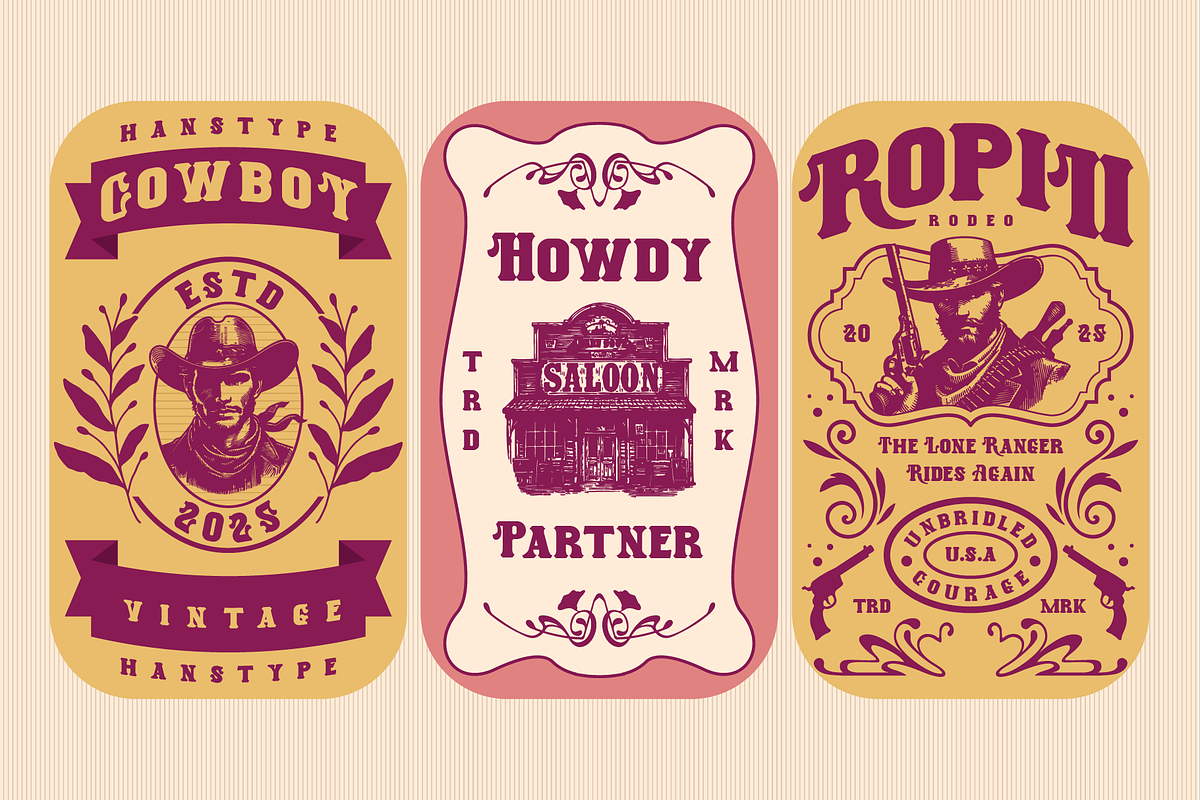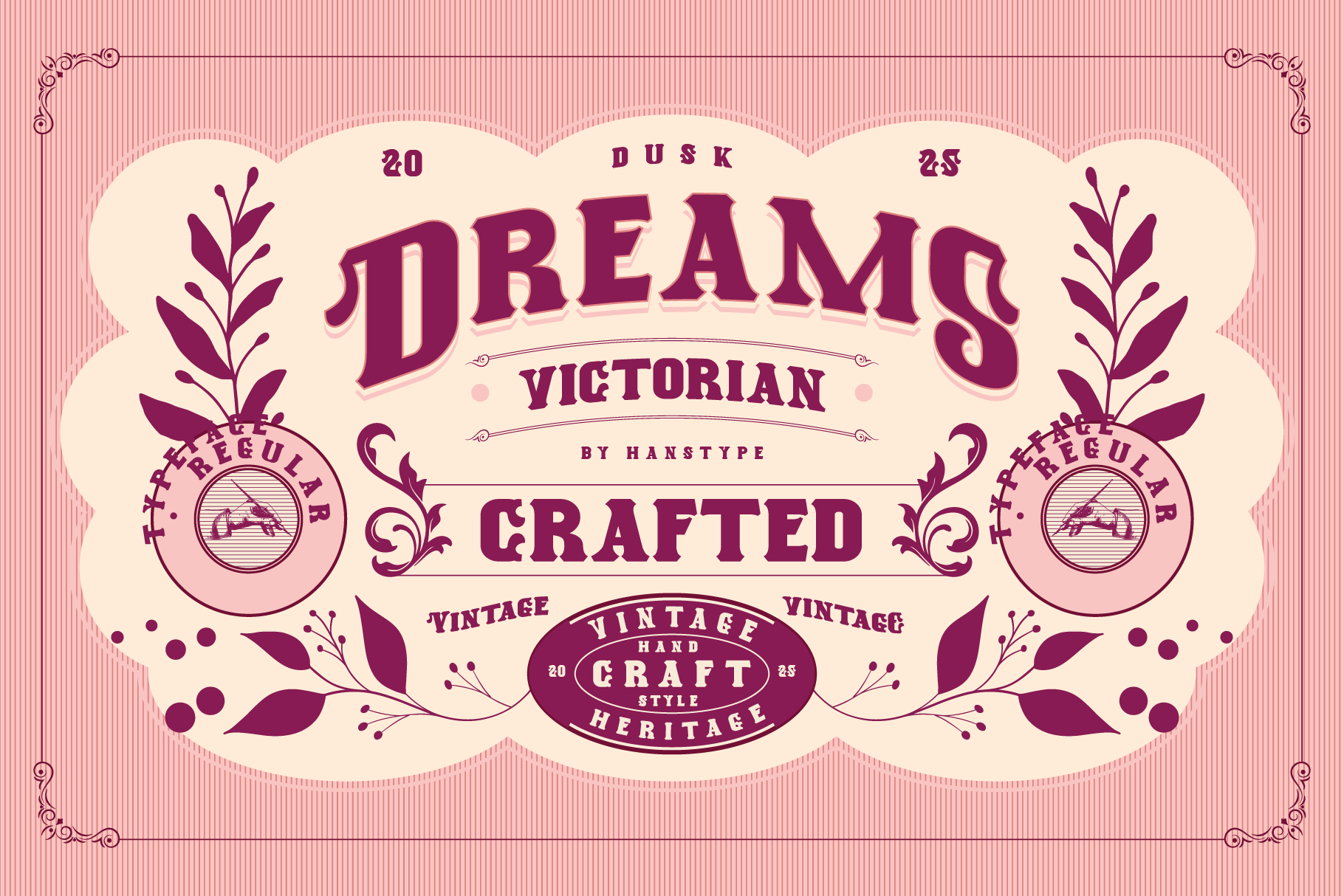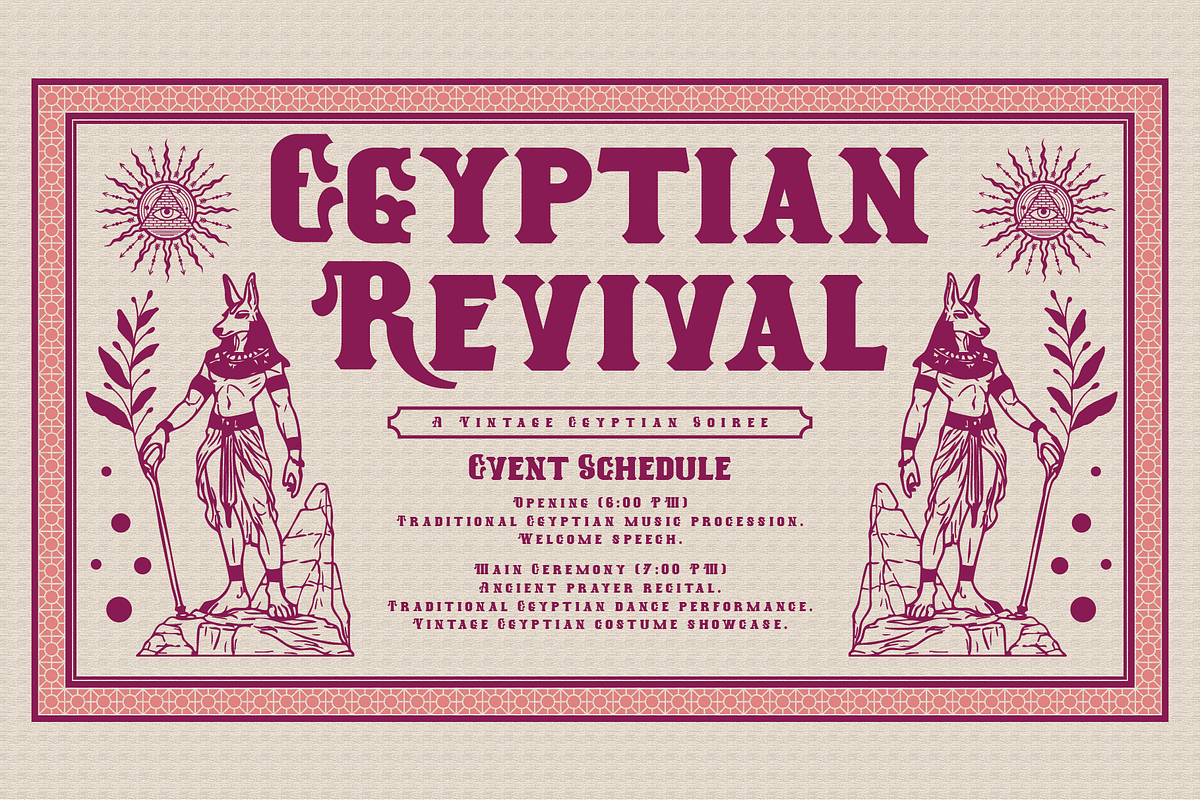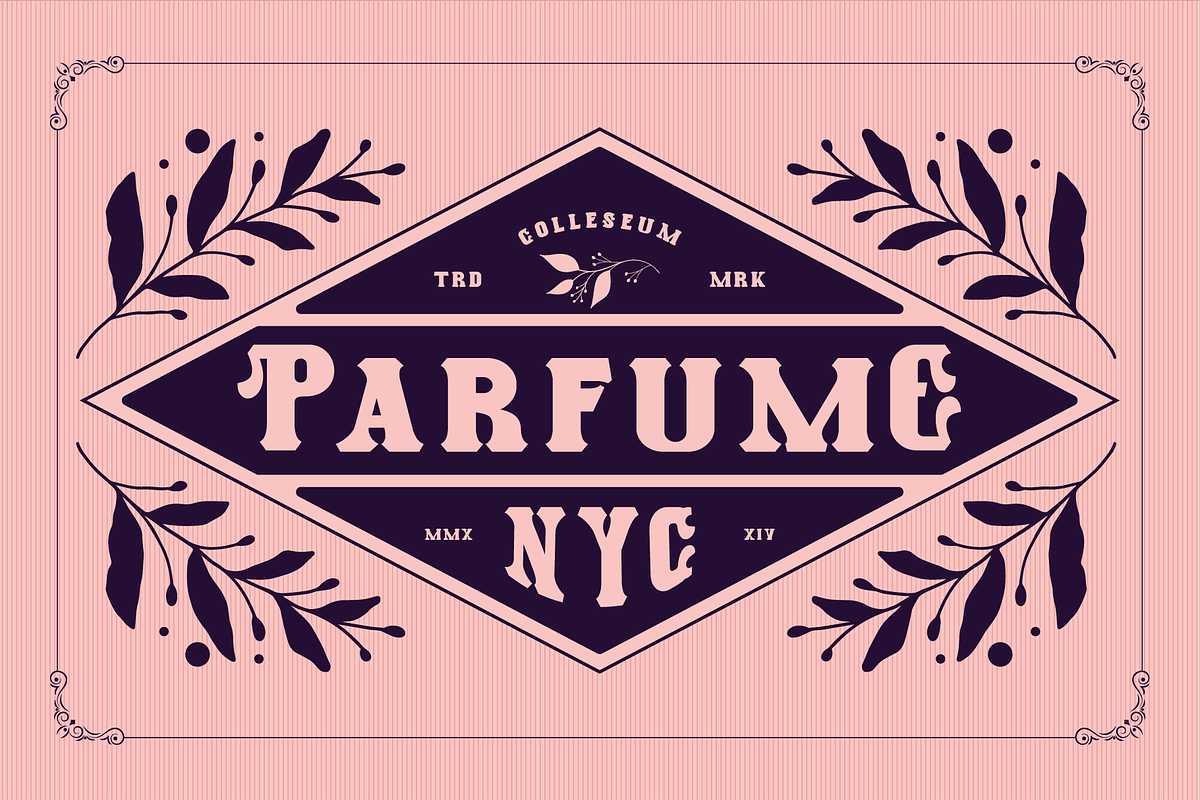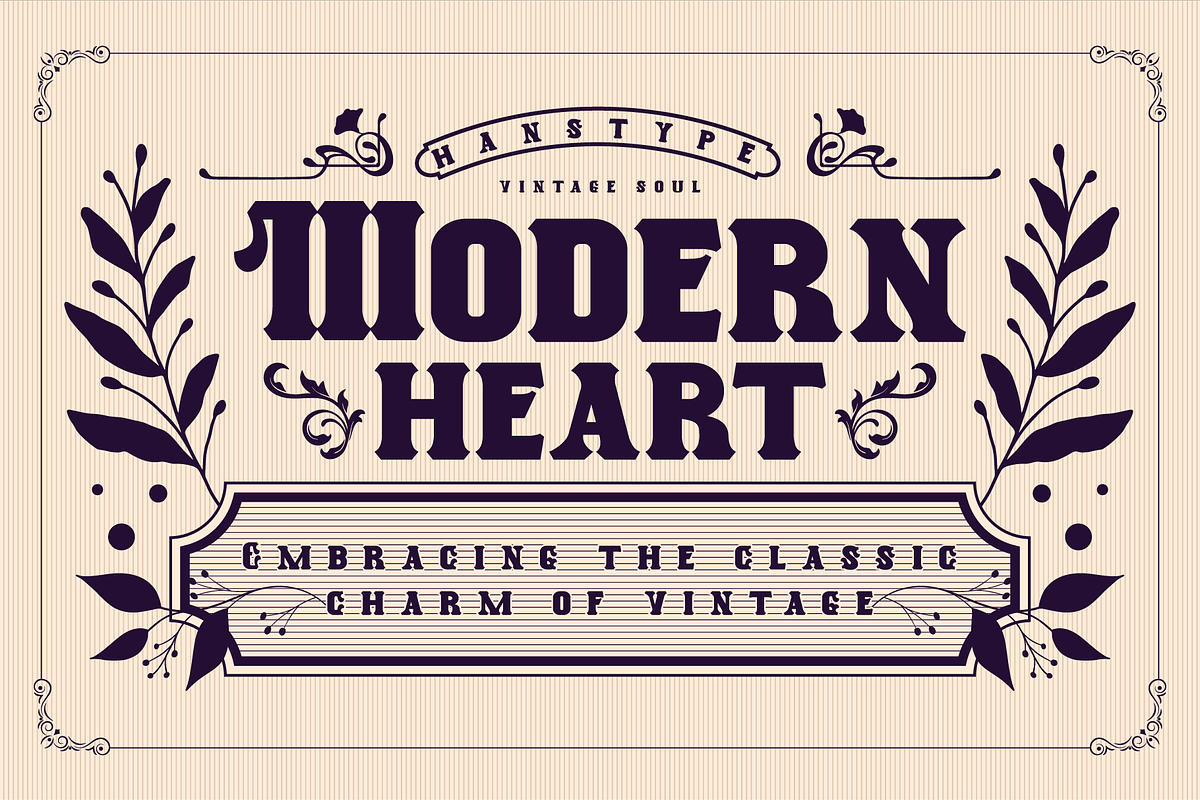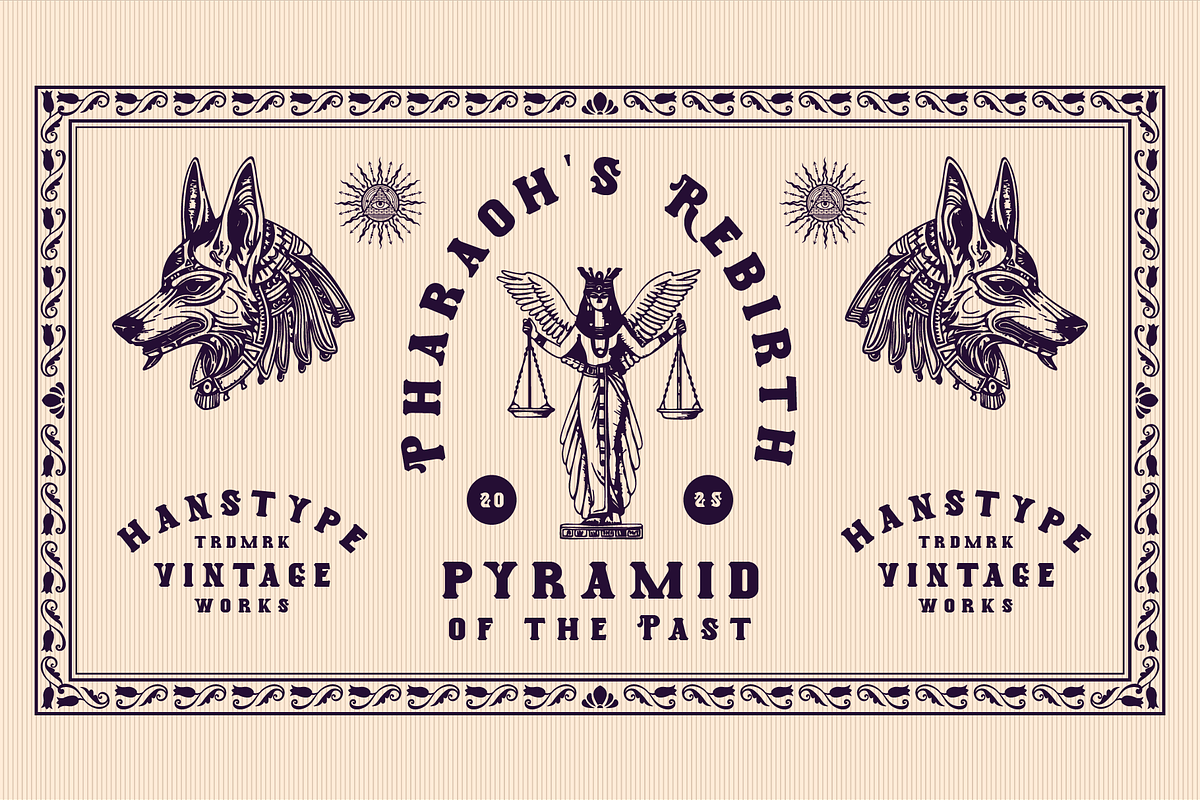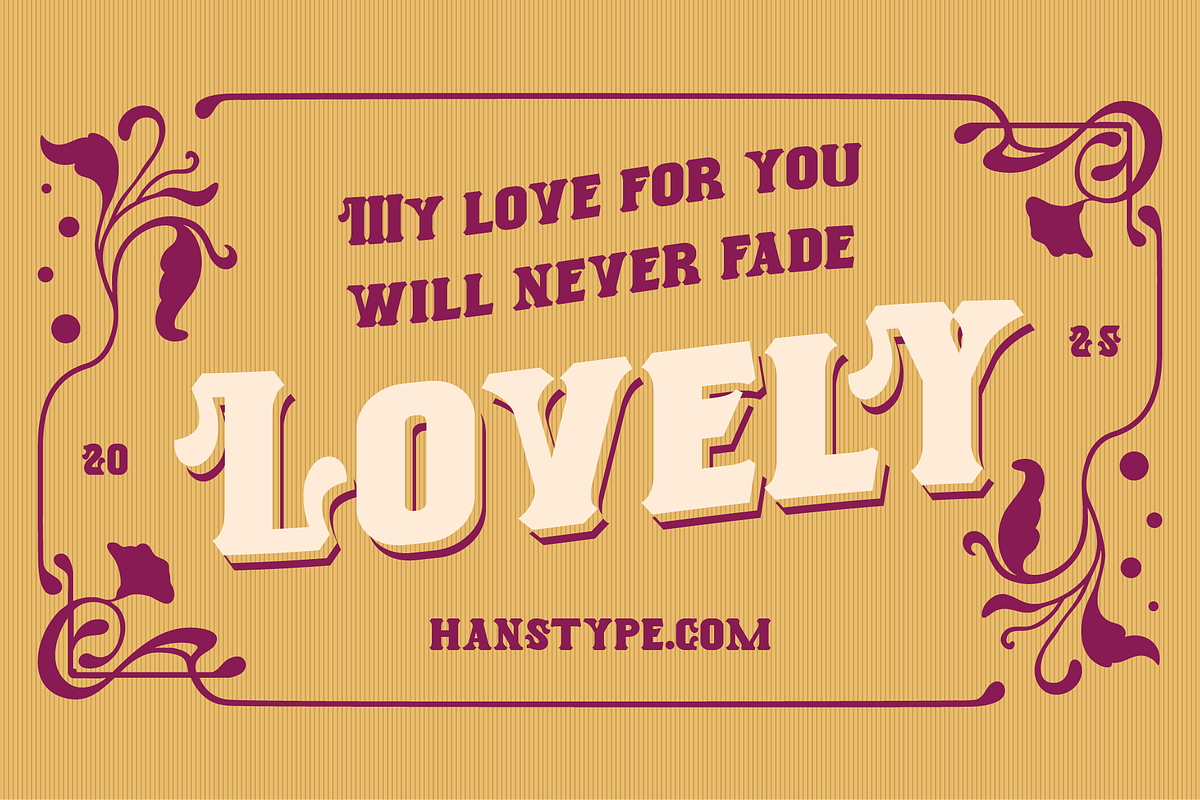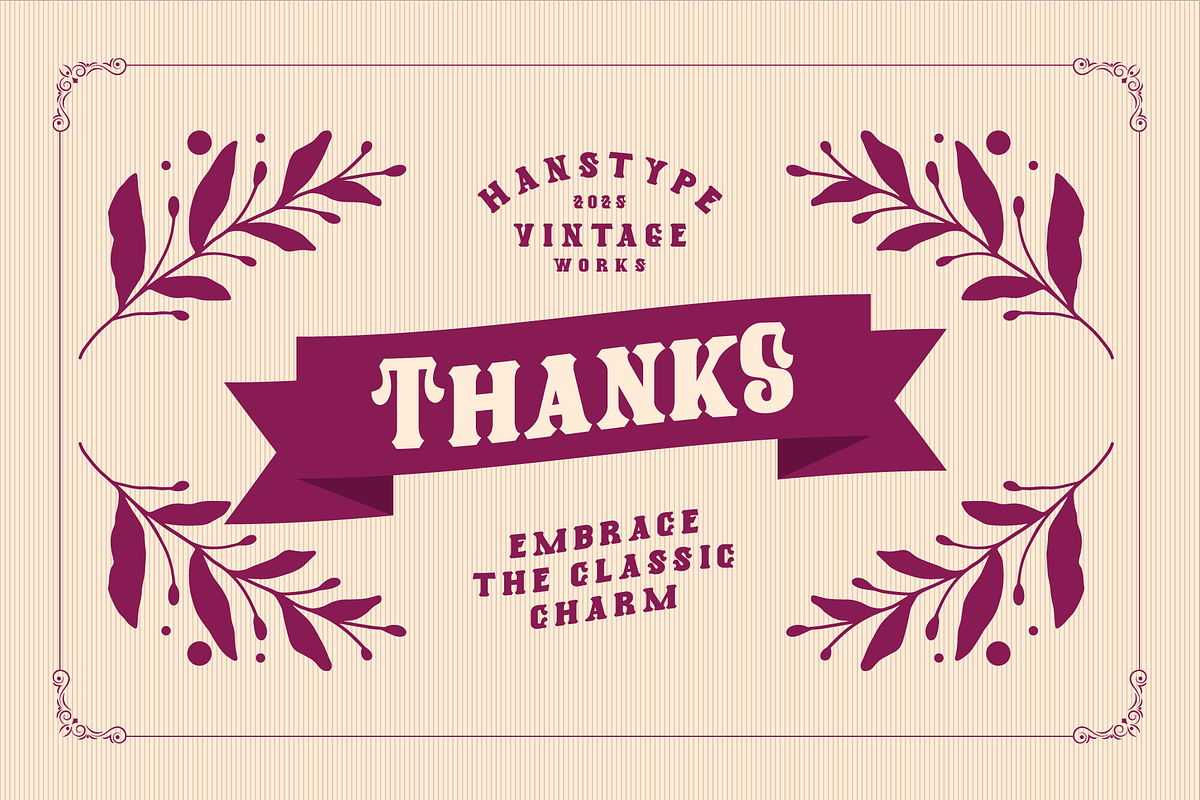
Duskdreams - Victorian Font
A bold vintage serif font that effortlessly blends timeless elegance with a modern edge. With its striking, sharp lines and classic serifs, this typeface brings a sense of sophistication and nostalgia to any design. Perfect for making a statement in headlines, posters, and branding, Duskdreams exudes both strength and charm, evoking a vintage aesthetic while maintaining a bold presence in the contemporary world.